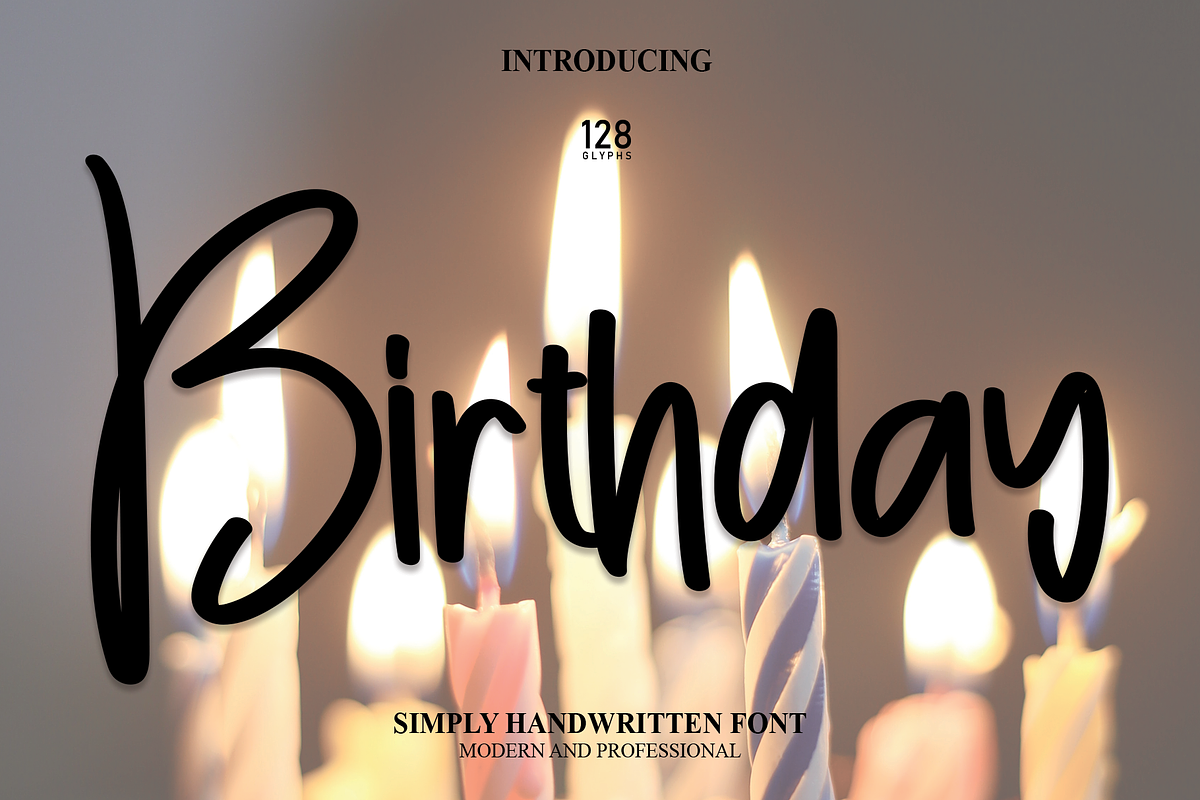
Birthday | Script Font Free Download
Birthday | Script Font Free Download is a playful and elegant typeface designed to add a festive, handwritten feel to your designs. With its smooth curves and flowing strokes, this script font is perfect for creating birthday invitations, greeting cards, party decorations, and other celebratory designs. Its cheerful yet refined look makes it a great choice for event branding, gift tags, and personalized gift designs. Whether you’re planning a special celebration or designing fun marketing materials, Birthday | Script Font Free Download gives you the chance to explore its joyful style in personal projects before purchasing a commercial license. Infuse your designs with the excitement and warmth of a birthday celebration with this beautiful, expressive script font.